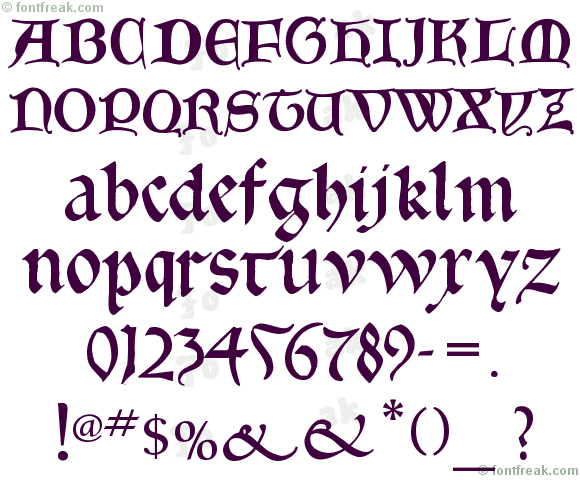
GoticaBastard
About GoticaBastard
Introducing the GoticaBastard font by Manfred Klein, a striking display typeface that brings a unique edge to any design project. This font falls under the decorative category, characterized by its bold, gothic-inspired design that captures attention and evokes a sense of drama. With its high stroke weight and contrasting thick and thin lines, GoticaBastard showcases an intricate interplay of shapes that add depth and character.
Visually, the font features sharp, angular forms and ornate details, making it a feast for the eyes. The generous spacing between letters enhances legibility, allowing the distinctive features of each character to shine through without overwhelming the viewer. These decorative elements make it an excellent choice for projects that require a touch of flair and personality.
GoticaBastard is ideal for a variety of specific use cases. It can transform wedding invitations into elegant masterpieces, lend an air of sophistication to movie posters, and give restaurant menus a unique identity. Additionally, it can be used effectively in branding materials for businesses looking to stand out in a crowded market.
What sets the GoticaBastard font apart is its ability to infuse traditional gothic aesthetics into modern designs, creating a bridge between the past and the present. By opting for the GoticaBastard font free download, you can elevate your creative work and leave a lasting impression on your audience.